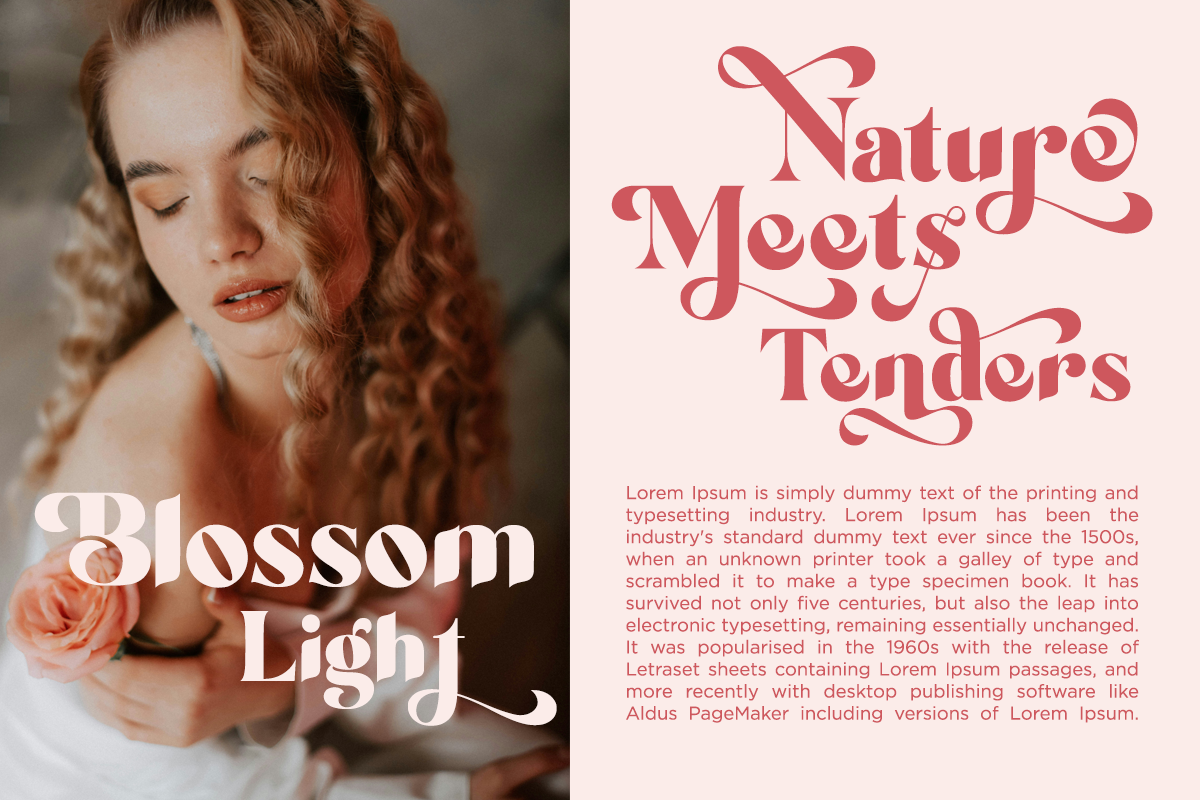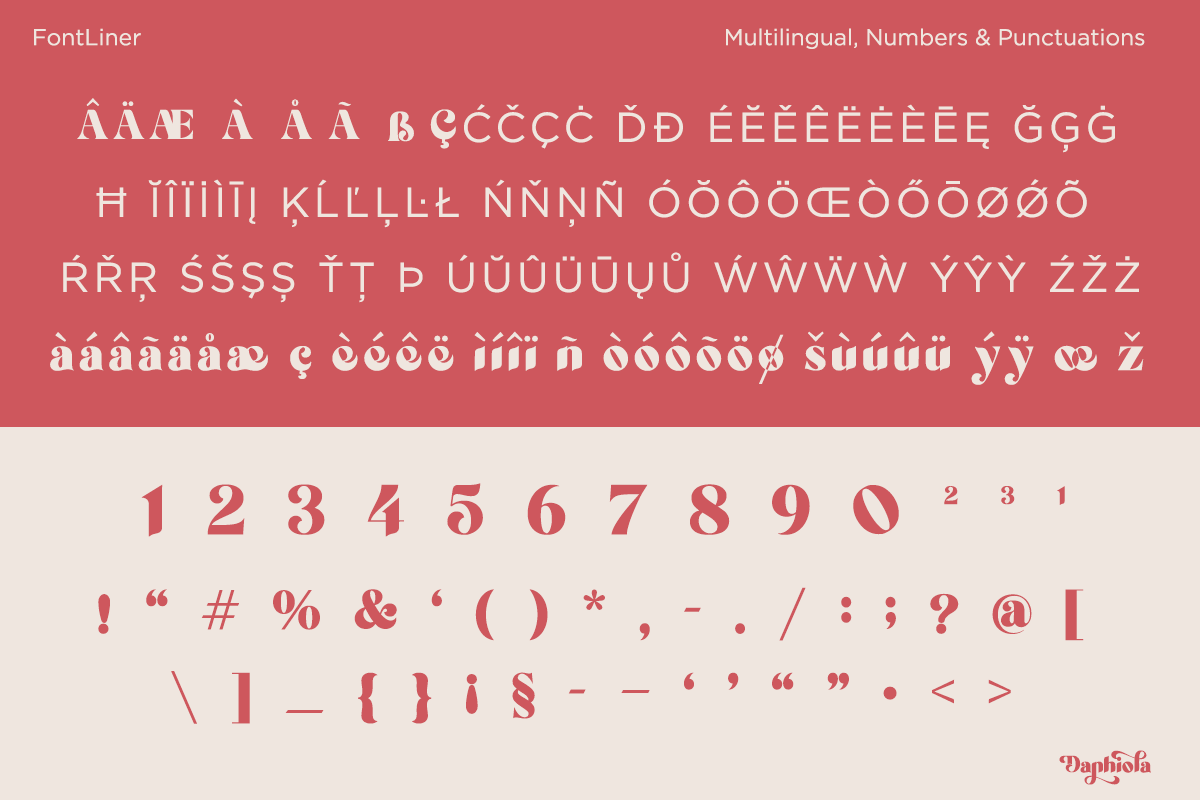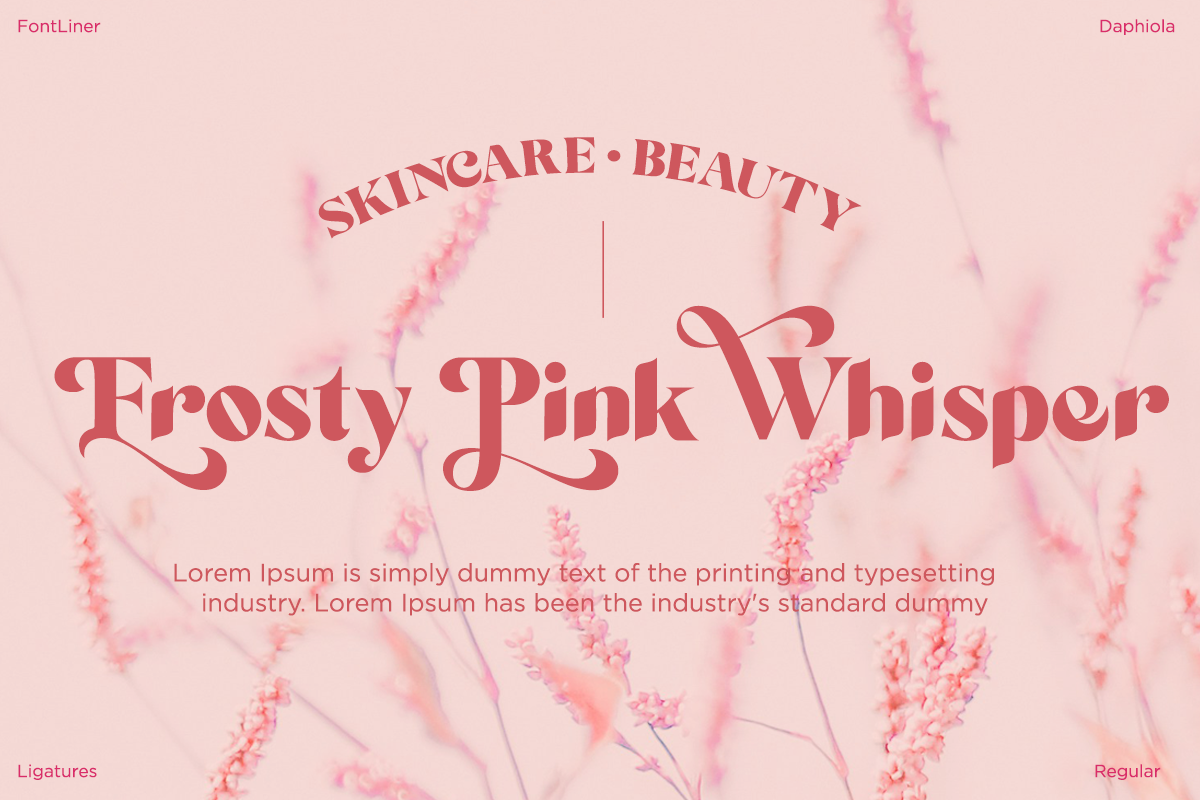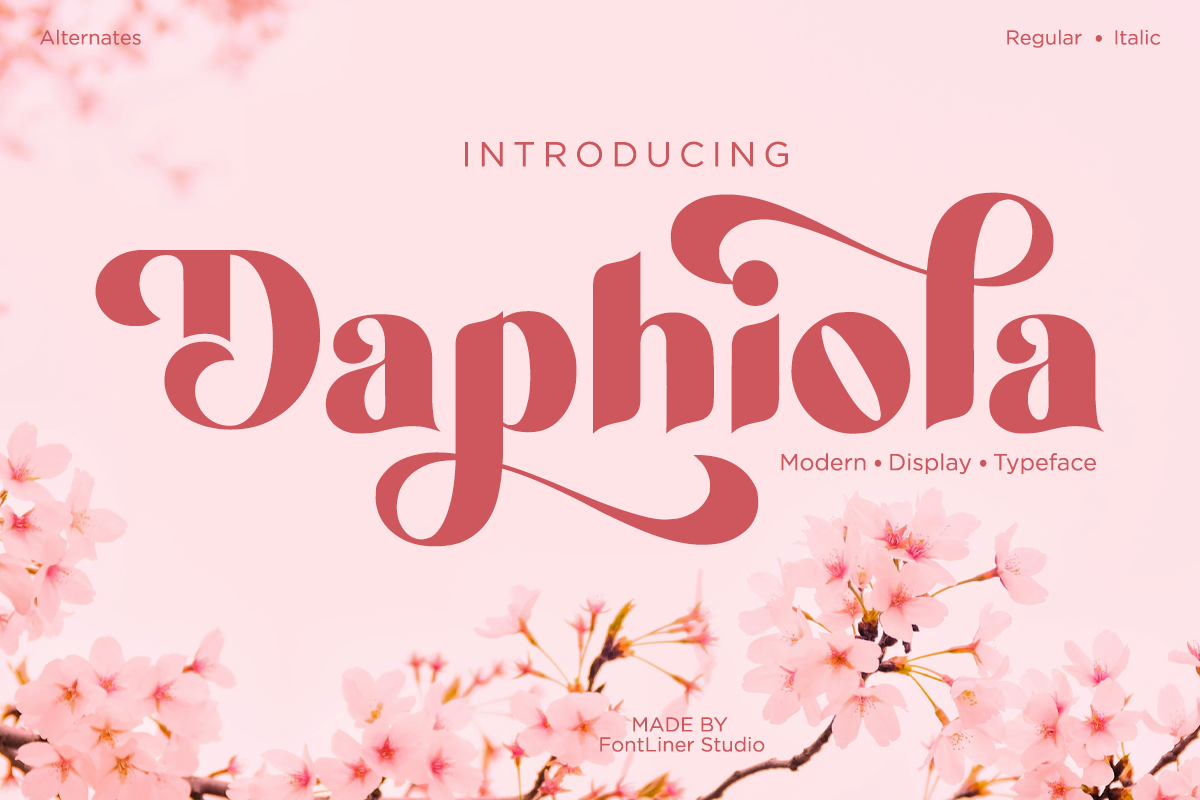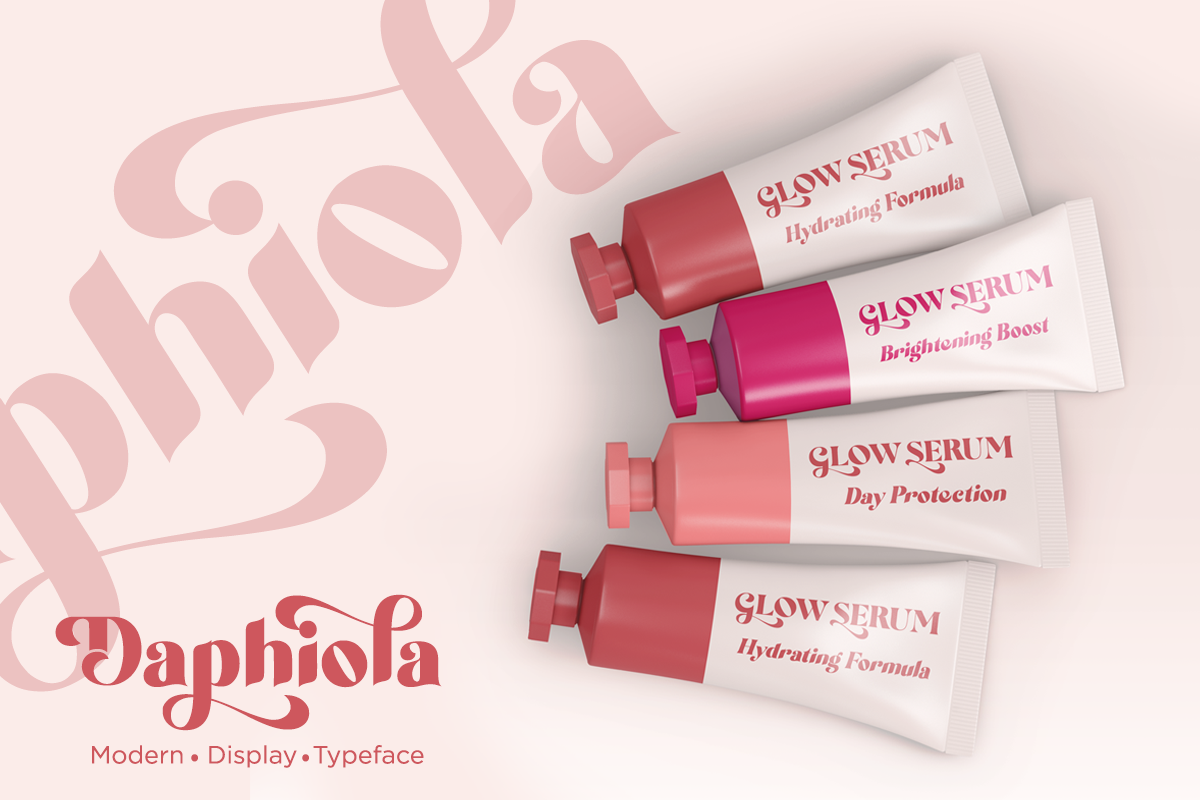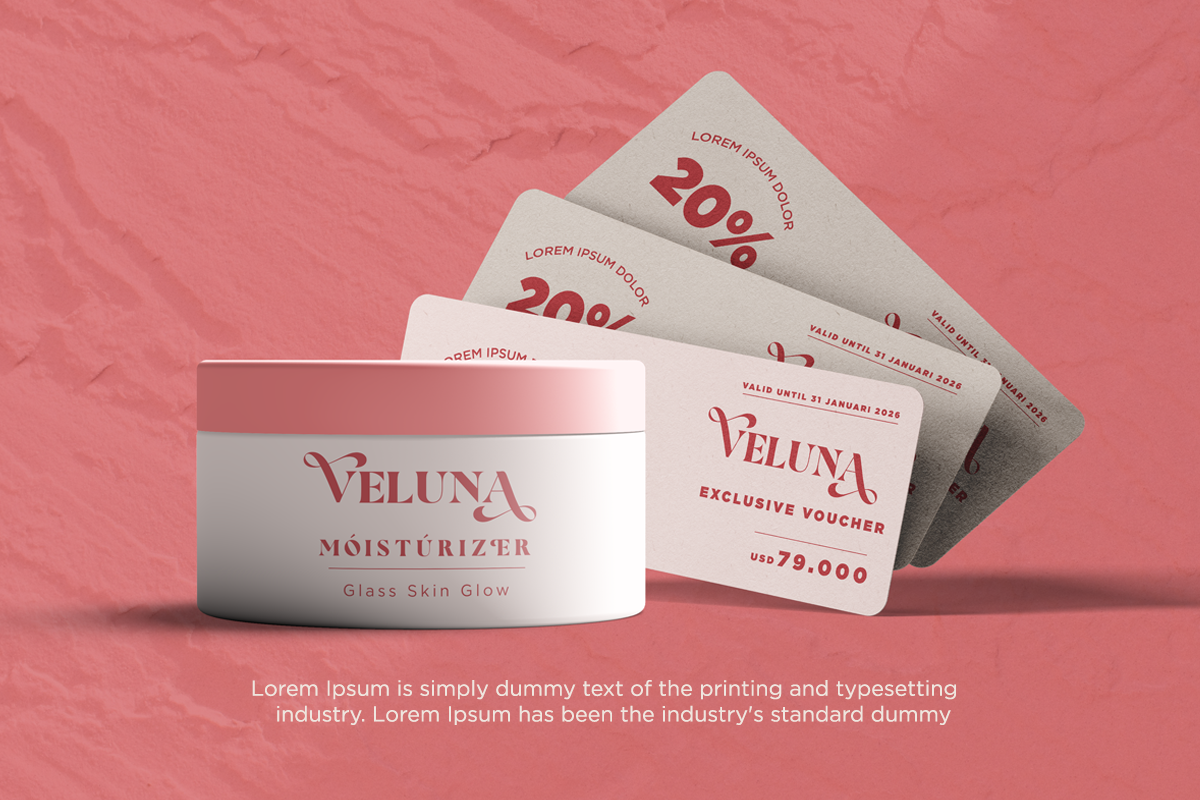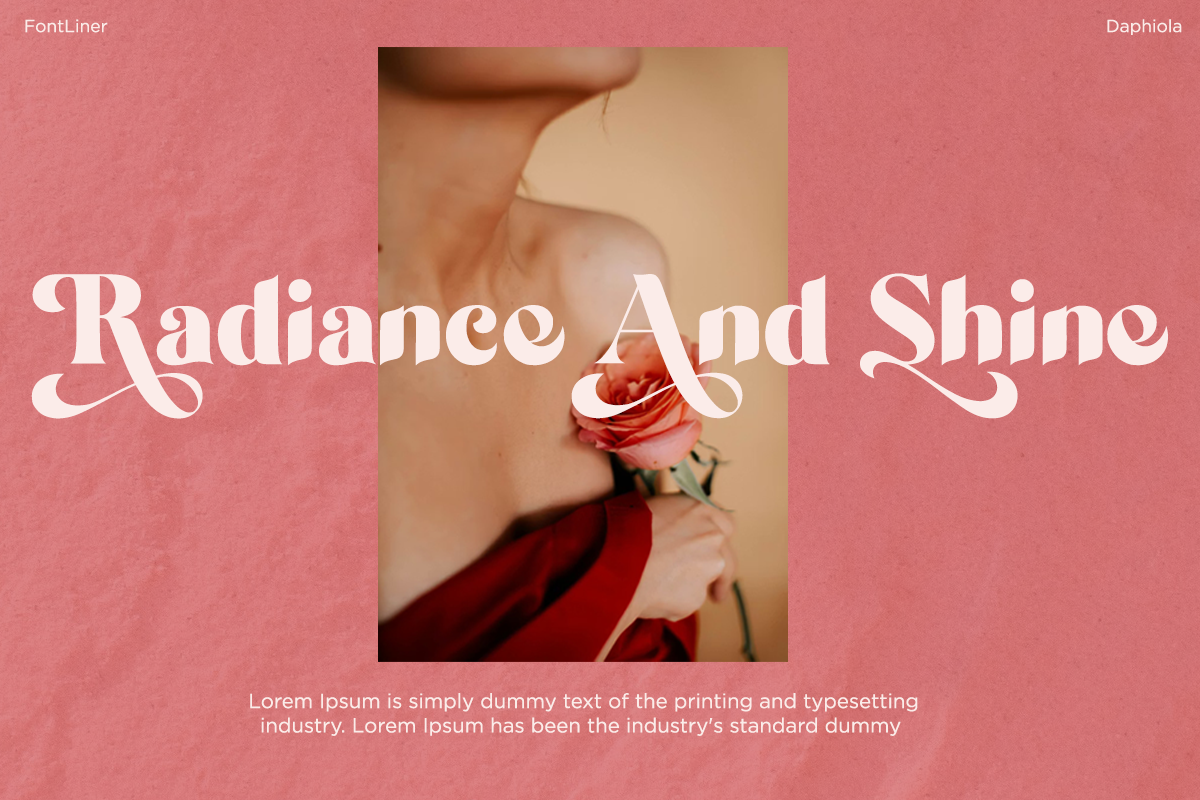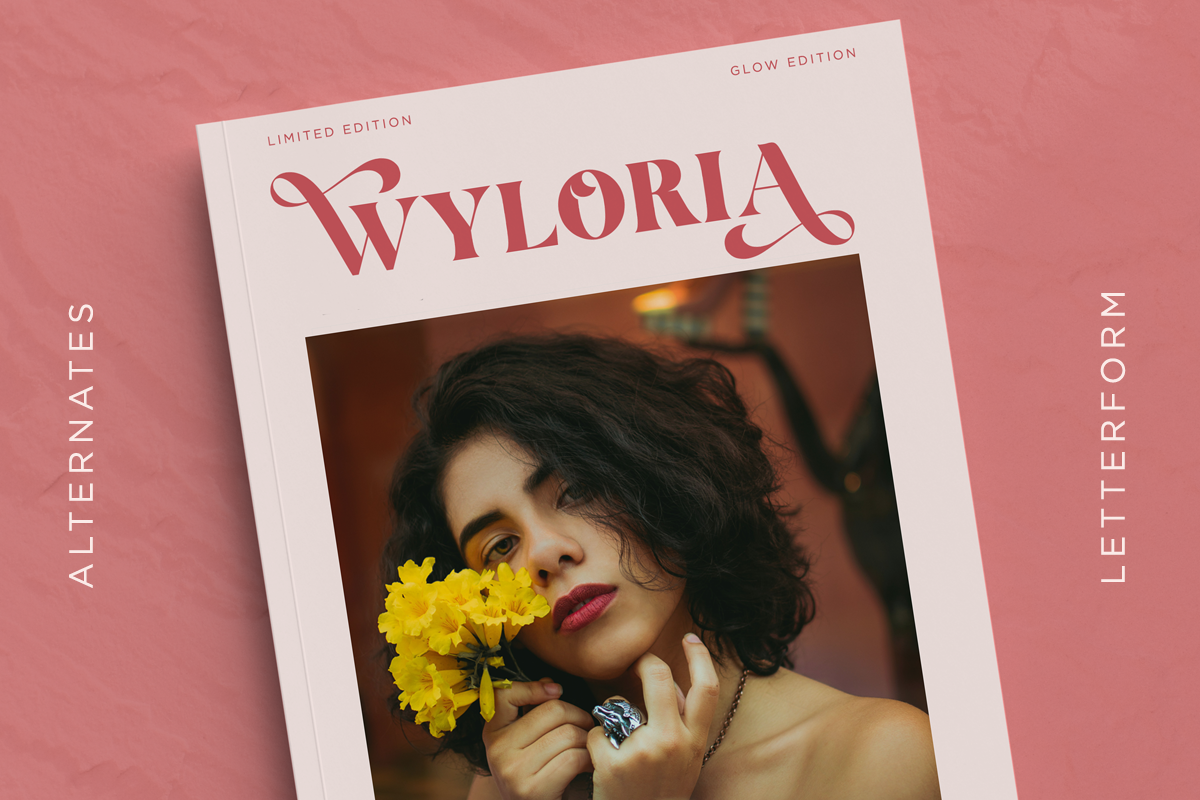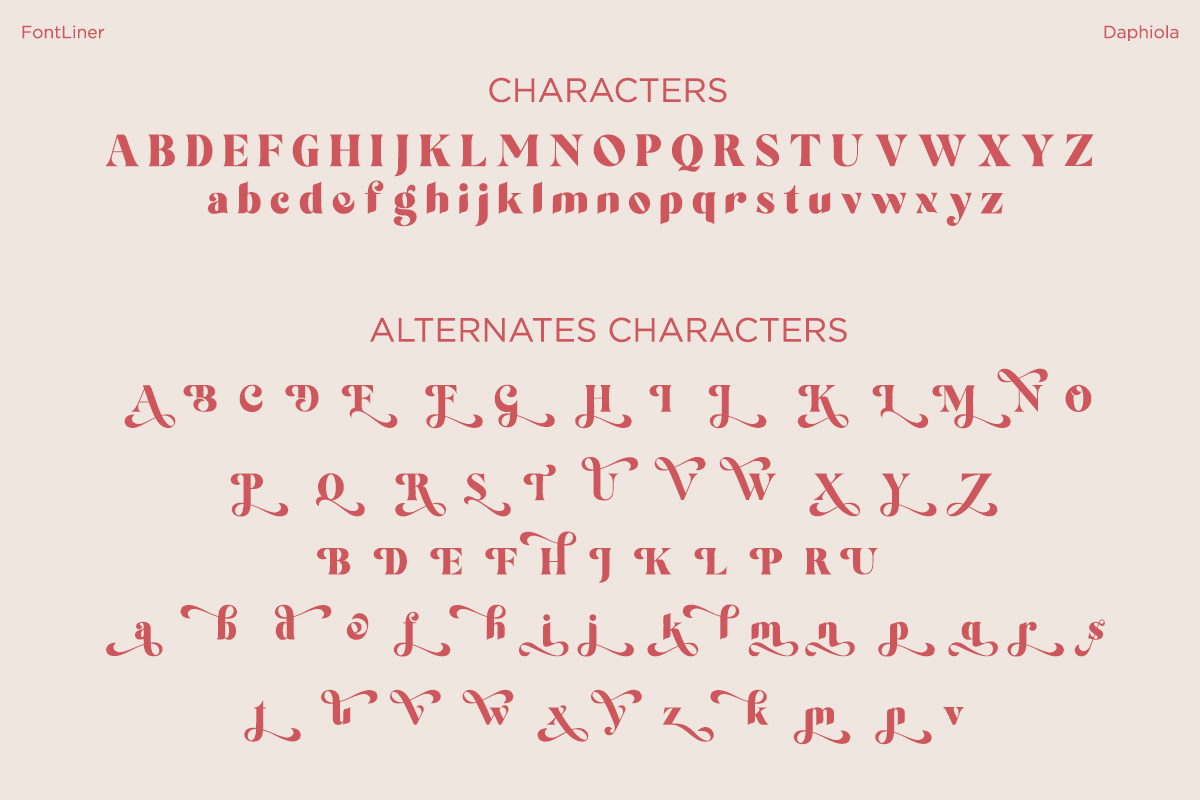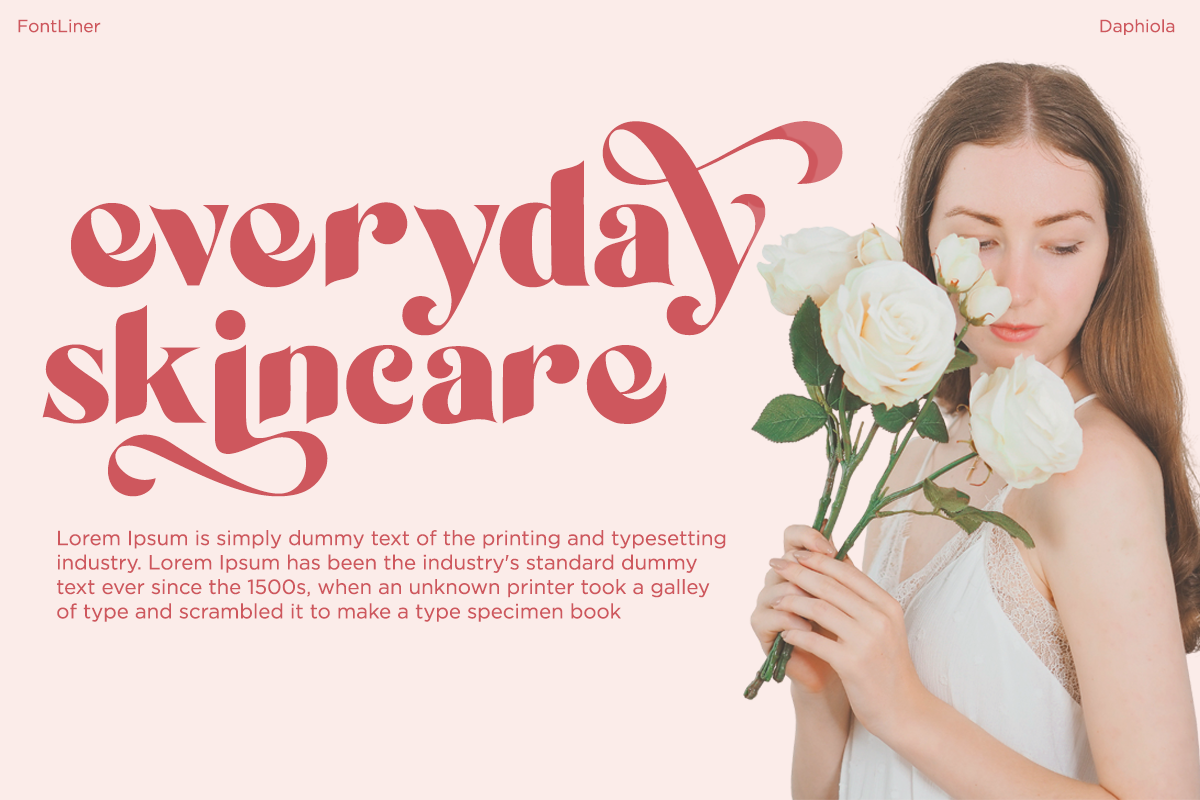
Daphiola - Modern Display Typeface
Daphiola is a modern display typeface with alternates lowercase and Uppercase. A very versatile font that works in both large and small sizes. This font is suitable for a wide variety of projects such as: headlines, logos, labels, branding projects, magazines, homeware designs, product packaging, mugs, quotes, posters, and more. It can also be more expressive and fun, thanks to the many alternatives and binders that combine harmoniously in this font and make it more interesting and versatile.
- Ligatures and Alternates